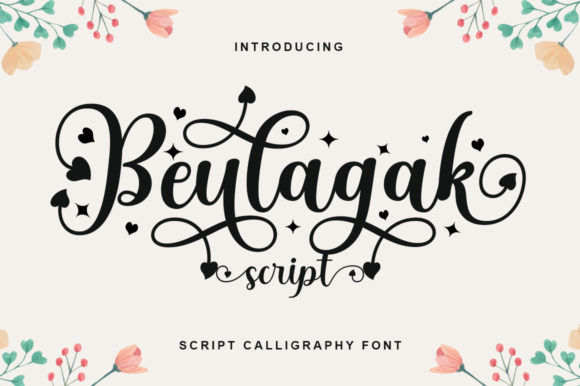
Embark on a typographic odyssey with Beulagak Script, a font that epitomizes elegance and charm. Its meticulously crafted curves and flourishes evoke a sense of timeless sophistication, making it the perfect choice for those seeking to create captivating designs that leave a lasting impression.
Beulagak Script's versatility shines through in its ability to seamlessly adapt to a wide range of projects, from enchanting invitations to heartfelt greeting cards. Its delicate strokes and graceful swashes add an air of refinement to any text, whether it's a heartfelt love letter or a formal business proposal. This font is not just a collection of characters; it's an artistic expression that breathes life into your words.
With Beulagak Script, your designs will transcend the ordinary and enter the realm of the extraordinary. Its enchanting aura captivates audiences, leaving them spellbound by the sheer beauty of your creations. Prepare to be mesmerized as your words dance across the page, each letter a work of art in its own right.
This font is more than just a font; it's an investment in your creative potential. Its limitless possibilities empower you to explore uncharted territories of design, pushing the boundaries of what's possible. Unlock your imagination and let Beulagak Script guide you on a journey of typographic excellence.
Don't settle for ordinary fonts that blend into the background. Choose Beulagak Script, the font that commands attention and elevates your designs to new heights. Its timeless appeal and undeniable charm will leave an indelible mark on your audience, ensuring that your message is not just heard but felt.